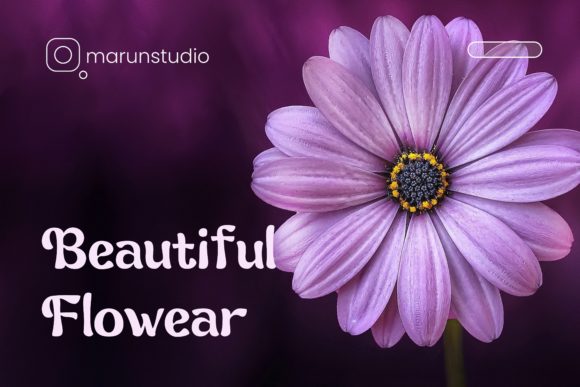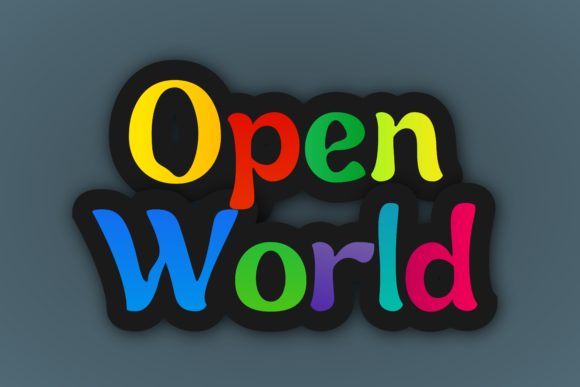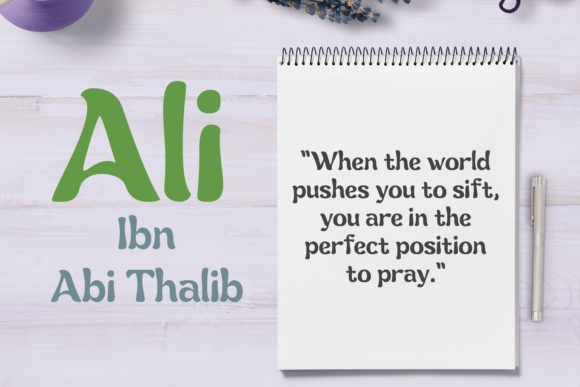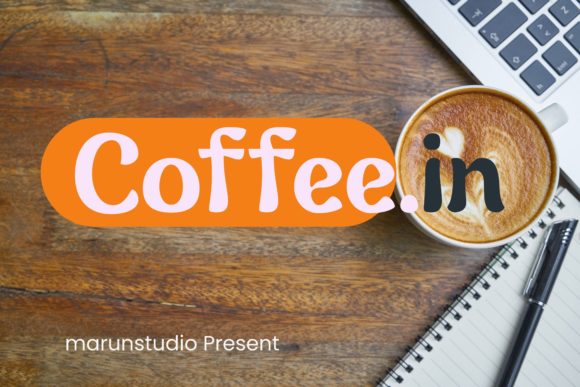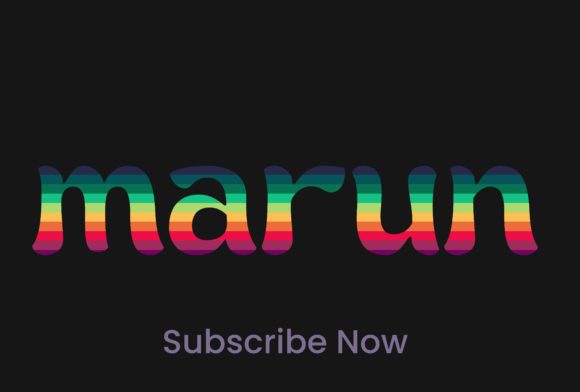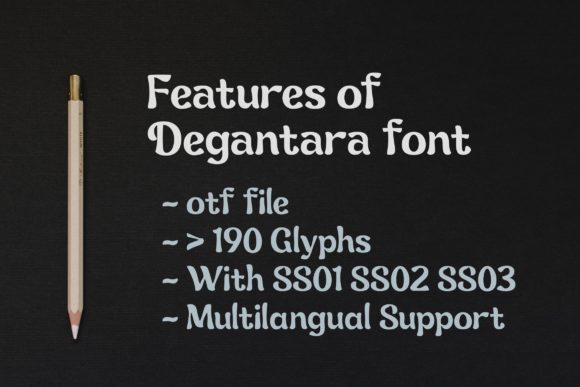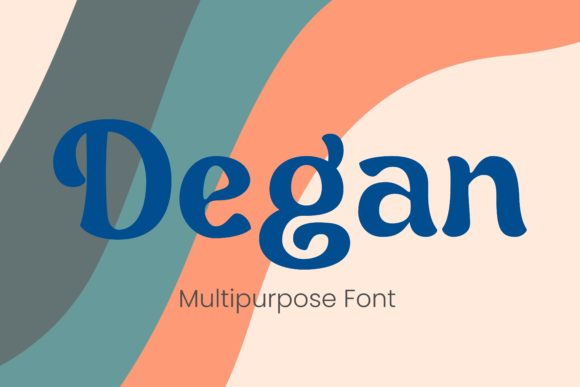
Introducing Degan Font: Elevate Your Designs with Style and Sophistication
Are you tired of using the same old fonts in your designs? Look no further than Degan Font, a sleek and modern display font that’s sure to take your creative projects to the next level. With its unique blend of style and sophistication, Degan Font is the perfect addition to any designer’s toolkit.
What is Degan Font?
Degan Font is a neat and stylish display font designed to make your designs stand out from the crowd. Its clean lines, elegant curves, and precise lettering make it an ideal choice for a wide range of creative projects, from branding and advertising to packaging and digital media.
Key Features of Degan Font
- Unique and Stylish Design: Degan Font boasts a distinctive and stylish design that’s sure to grab attention. Its elegant curves and clean lines make it perfect for creating sophisticated and eye-catching designs.
- Highly Versatile: Degan Font is incredibly versatile and can be used in a variety of creative projects, including branding, advertising, packaging, and digital media.
- Easy to Read: Despite its stylish design, Degan Font is highly legible and easy to read, making it perfect for use in both print and digital media.
How to Use Degan Font in Your Designs
Tips for Using Degan Font
- Use it as a Headline Font: Degan Font is perfect for use as a headline font, adding a touch of style and sophistication to your designs.
- Experiment with Different Colors: Degan Font looks great in a variety of colors, so don’t be afraid to experiment and find the perfect hue for your design.
- Pair it with Other Fonts: Degan Font pairs well with a range of other fonts, so try combining it with different fonts to create a unique and eye-catching design.
Benefits of Using Degan Font
There are many benefits to using Degan Font in your designs, including:
- Increased Creativity: Degan Font is a versatile and stylish font that can help inspire creativity and take your designs to the next level.
- Improved Brand Recognition: By using Degan Font in your designs, you can create a consistent and professional brand image that will help you stand out from the competition.
- Enhanced Visual Appeal: Degan Font is a beautifully designed font that can add a touch of style and sophistication to your designs, making them more visually appealing to your audience.